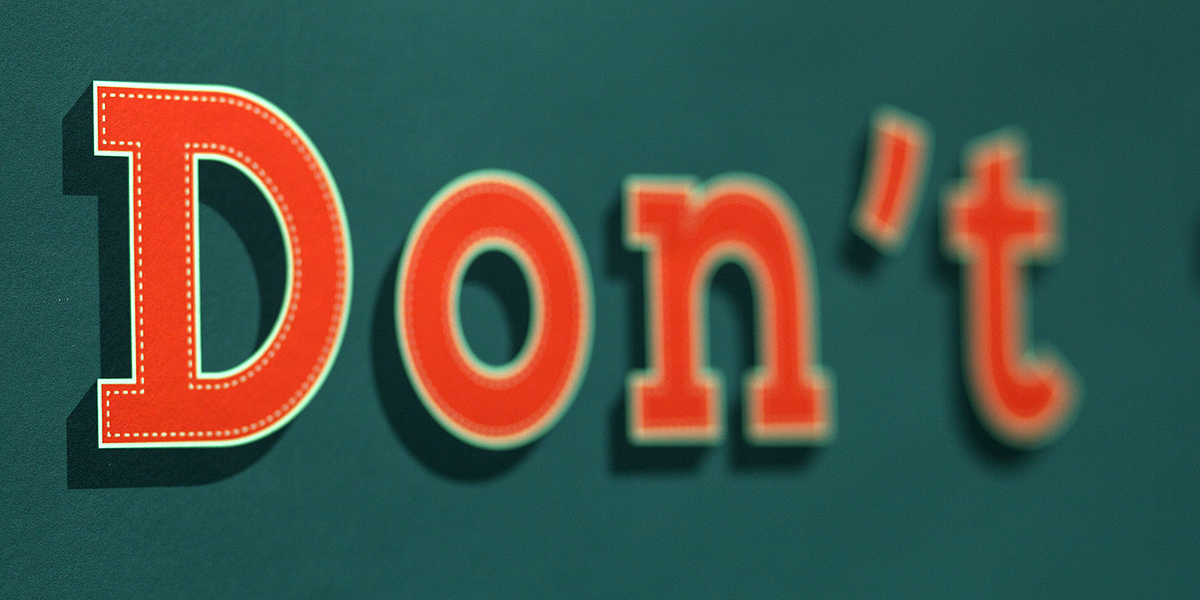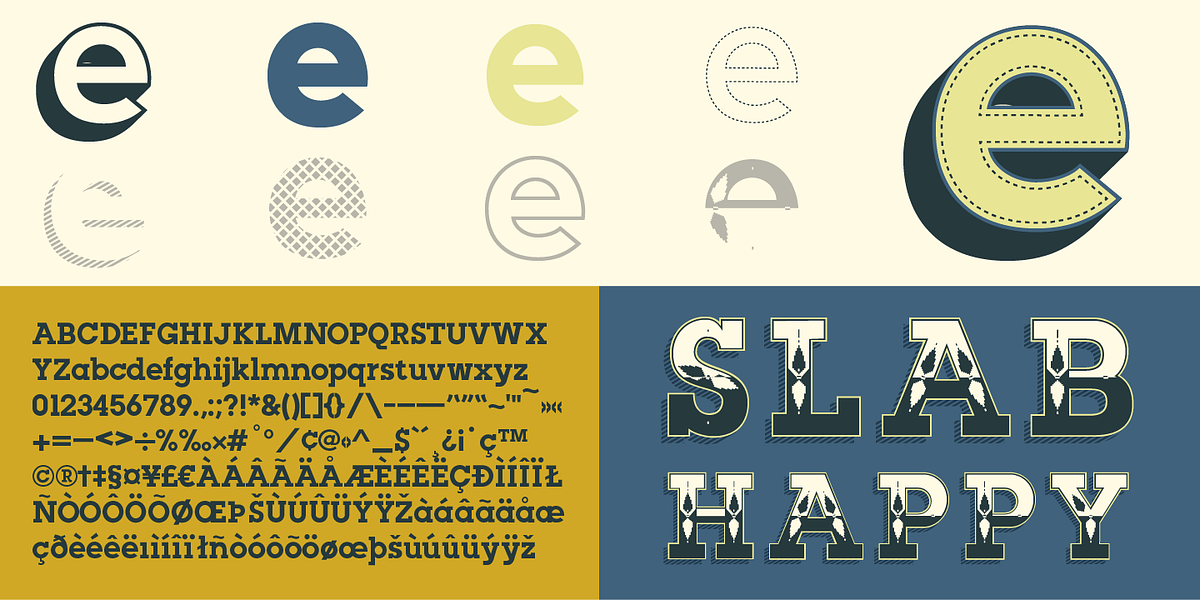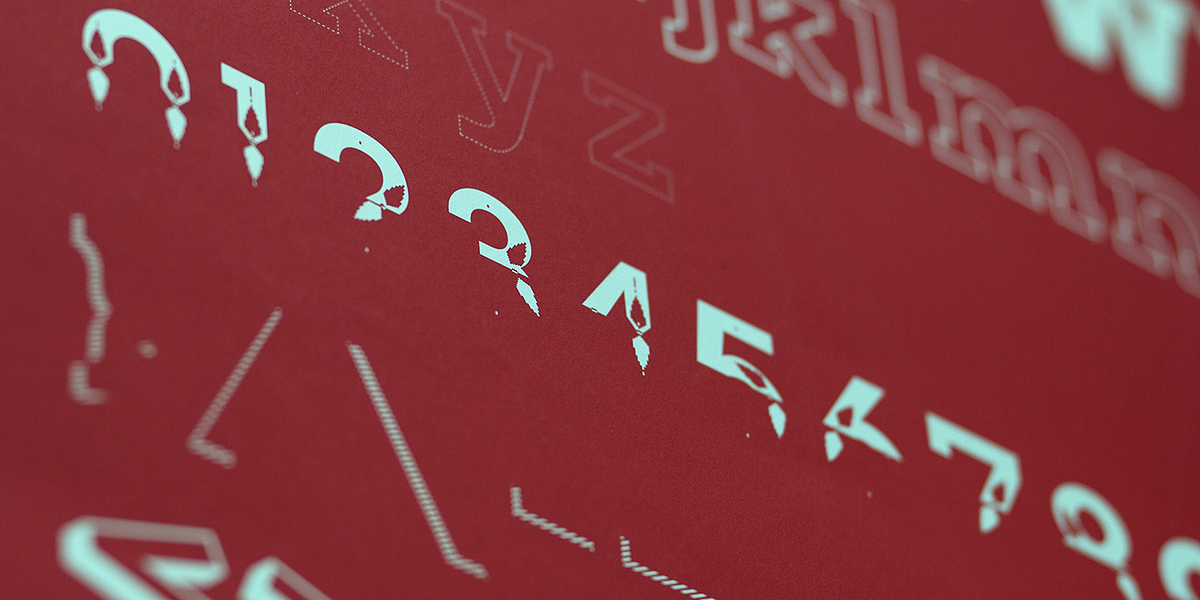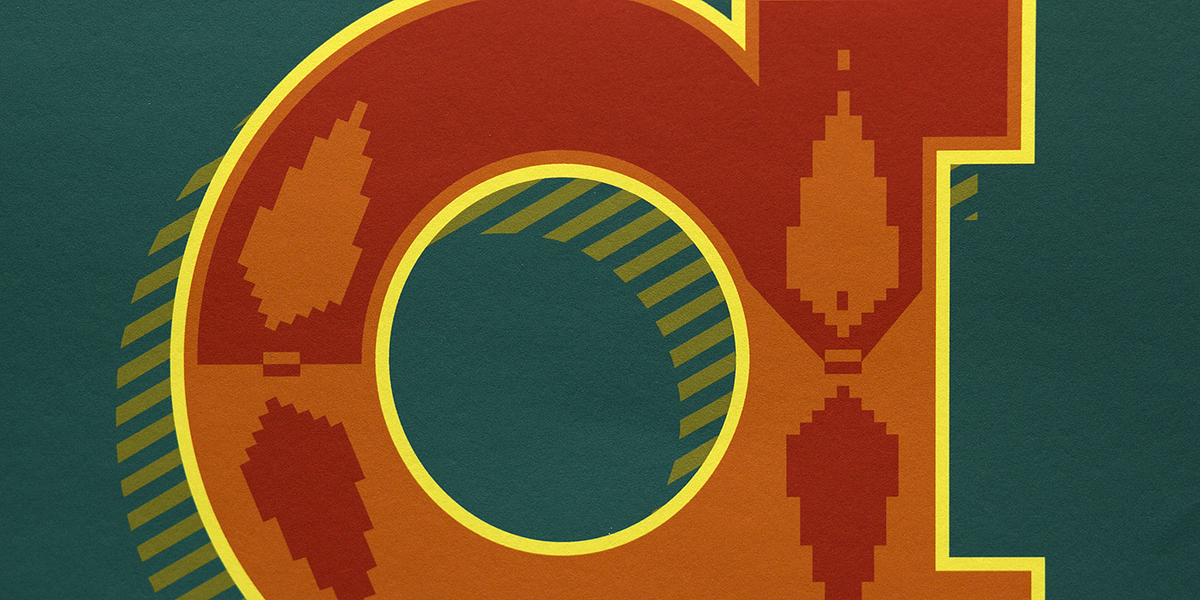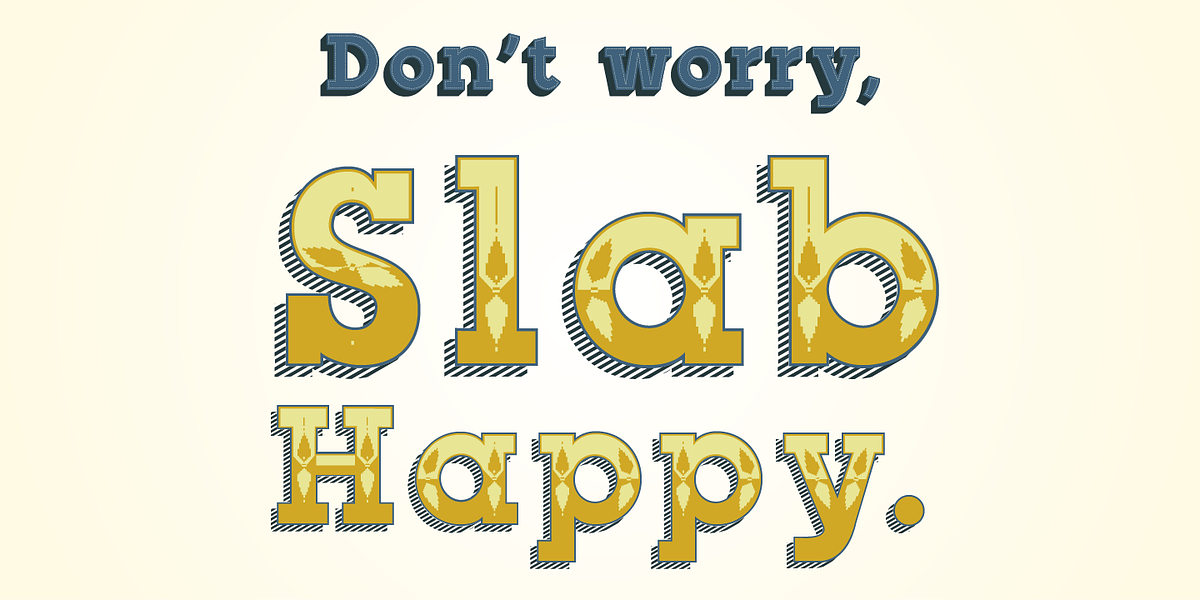
Slab Happy
Slab Happy is a display slab serif font designed for visual impact. Its layered system allows users to create unique combinations by overlapping and customizing layers with different fonts and colors. While best suited for headlines and posters due to its playful nature and bold presence, Slab Happy can also function effectively at smaller sizes.